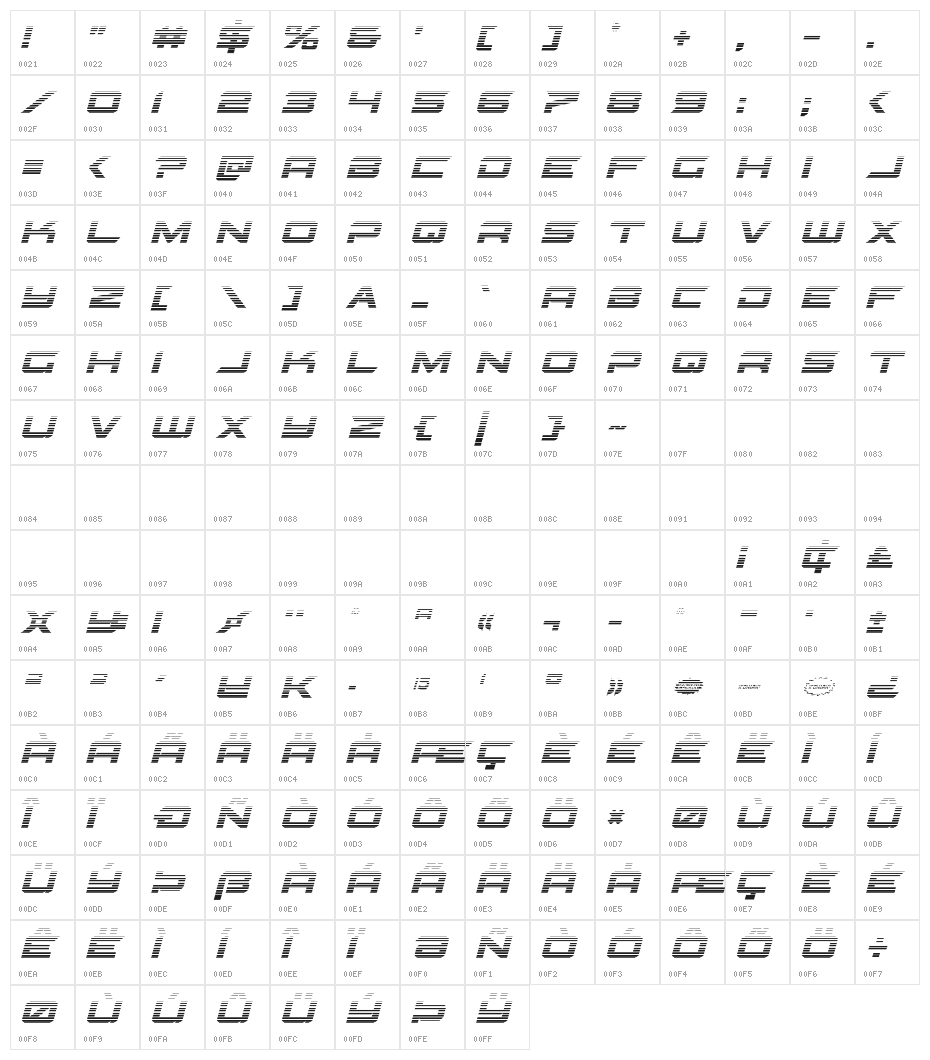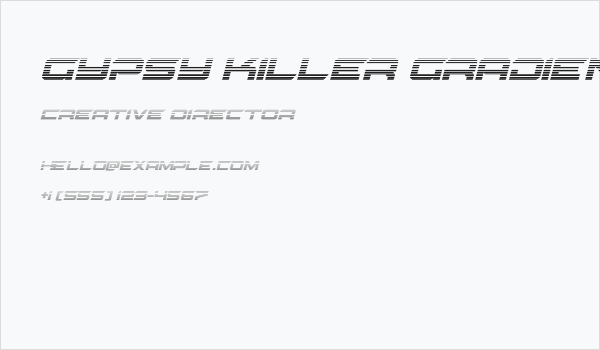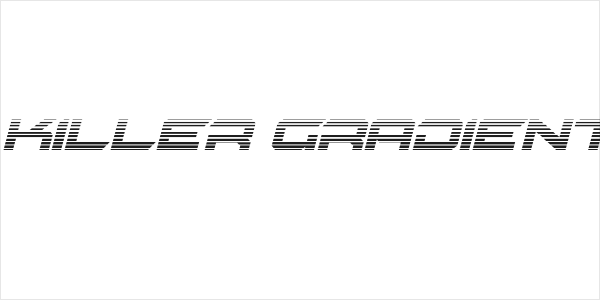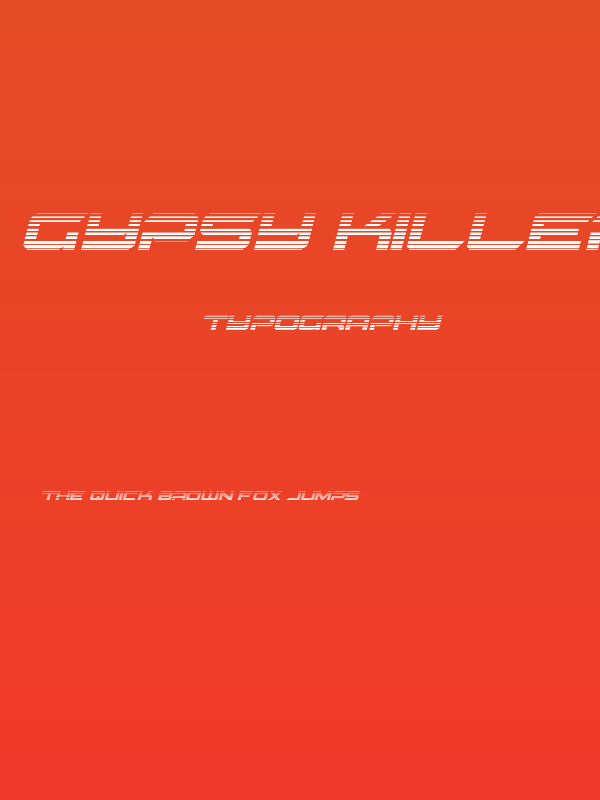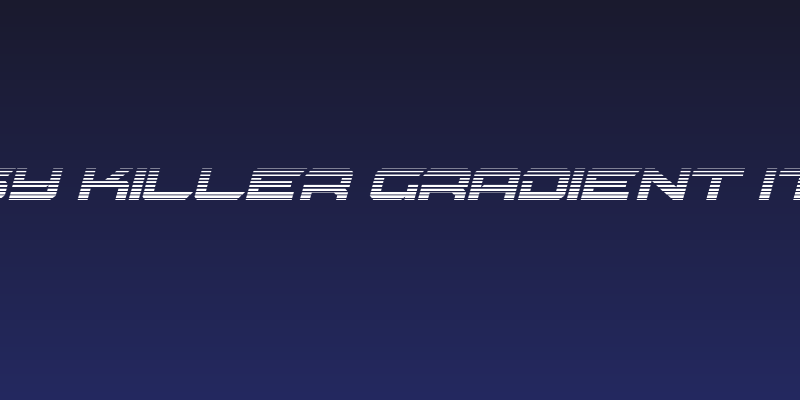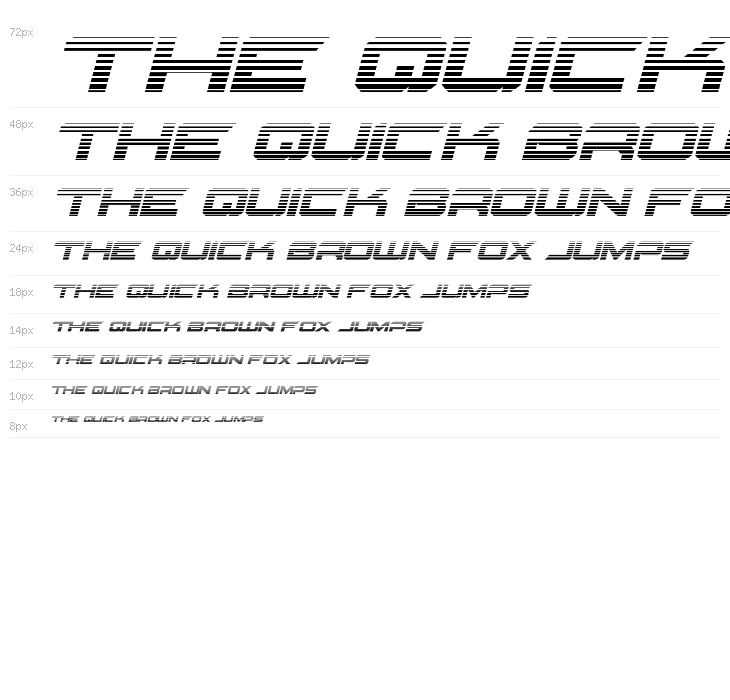
Gypsy Killer Gradient Italic Font
Gypsy Killer Gradient Italic Description
This font features a modern, futuristic design with a distinct gradient effect that gives it a dynamic and energetic appearance. The characters are italicized, adding a sense of motion and speed. Each letter is composed of horizontal lines that create a striped pattern, enhancing the visual interest and making it stand out. The uppercase and lowercase letters maintain a consistent style, while the numerals and special characters follow the same design principles, ensuring uniformity across all glyphs. This font is ideal for projects that require a bold and innovative look.